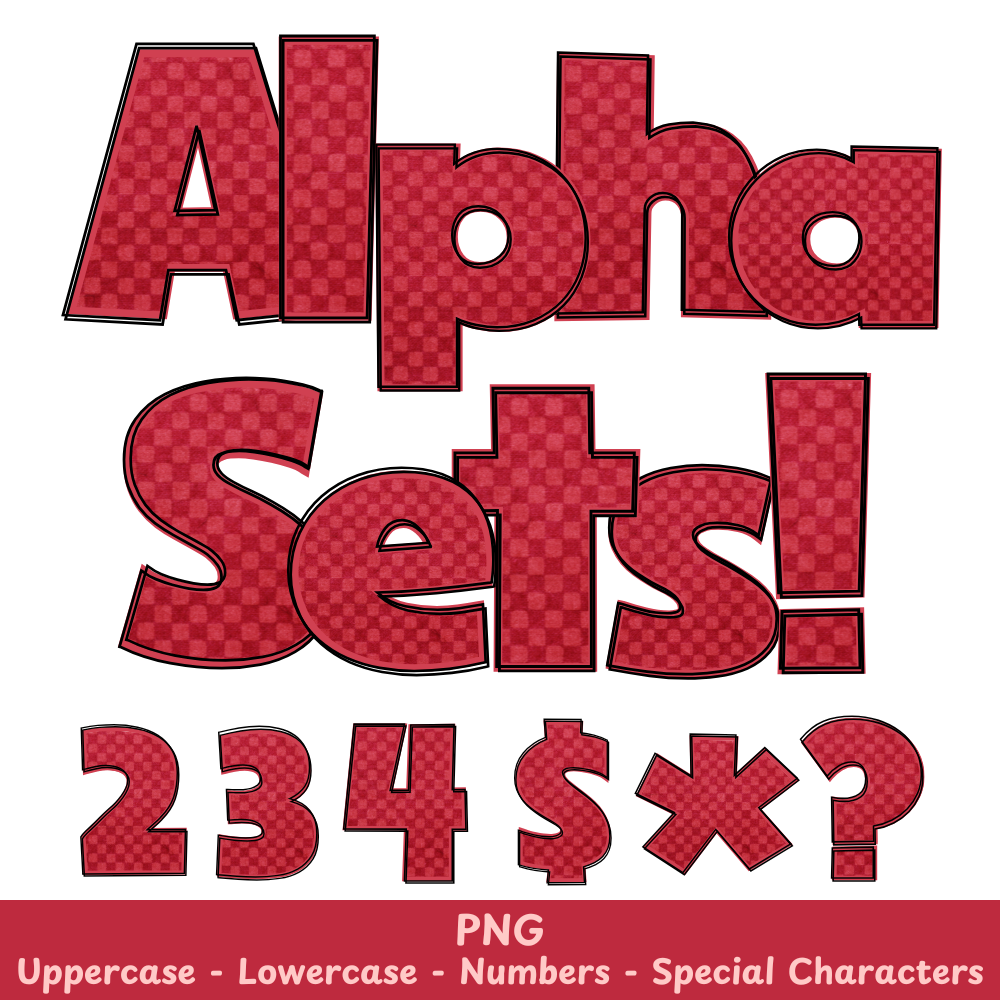
Red Checkered PNG Font
Red Checkered Alpha Set PNG Font Pack
Effortlessly add a touch of classic charm to your crafts with our Red Checkered PNG Font. Perfect for use in sublimation and other projects, this font boasts a vibrant red checkered pattern that is sure to stand out. Enhance your designs with ease and create unique pieces that will impress.